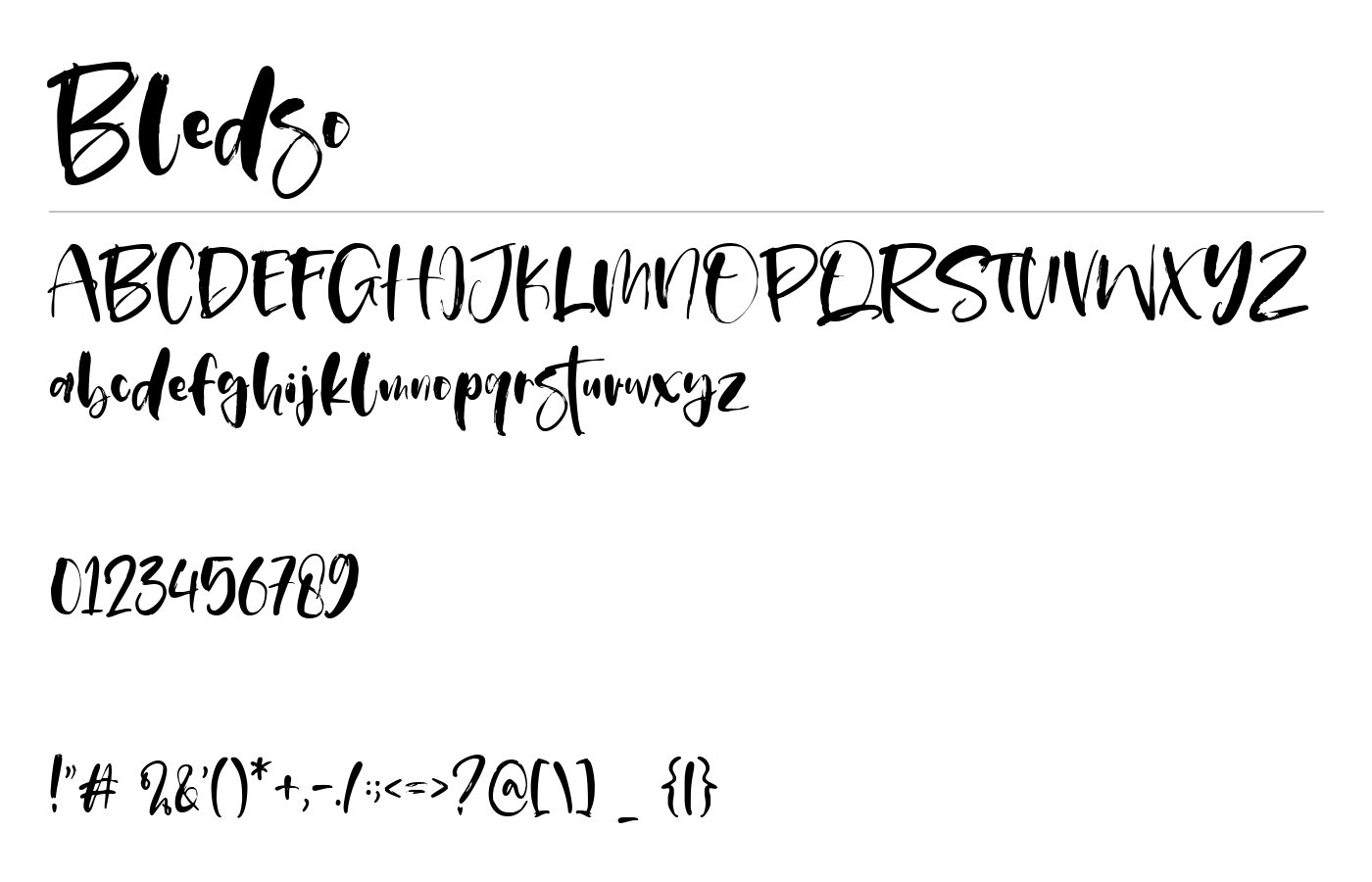
Bledso is a lively handwritten script font with a bold, textured stroke that gives it a casual yet artistic feel. Its dynamic letterforms convey a sense of energy and creativity, making it perfect for branding, invitations, and creative projects where a personal, expressive touch is desired. This font works well in headlines and display uses where personality and impact are key.
| Font family | Bledso Font |
| Designer | Olivetype |